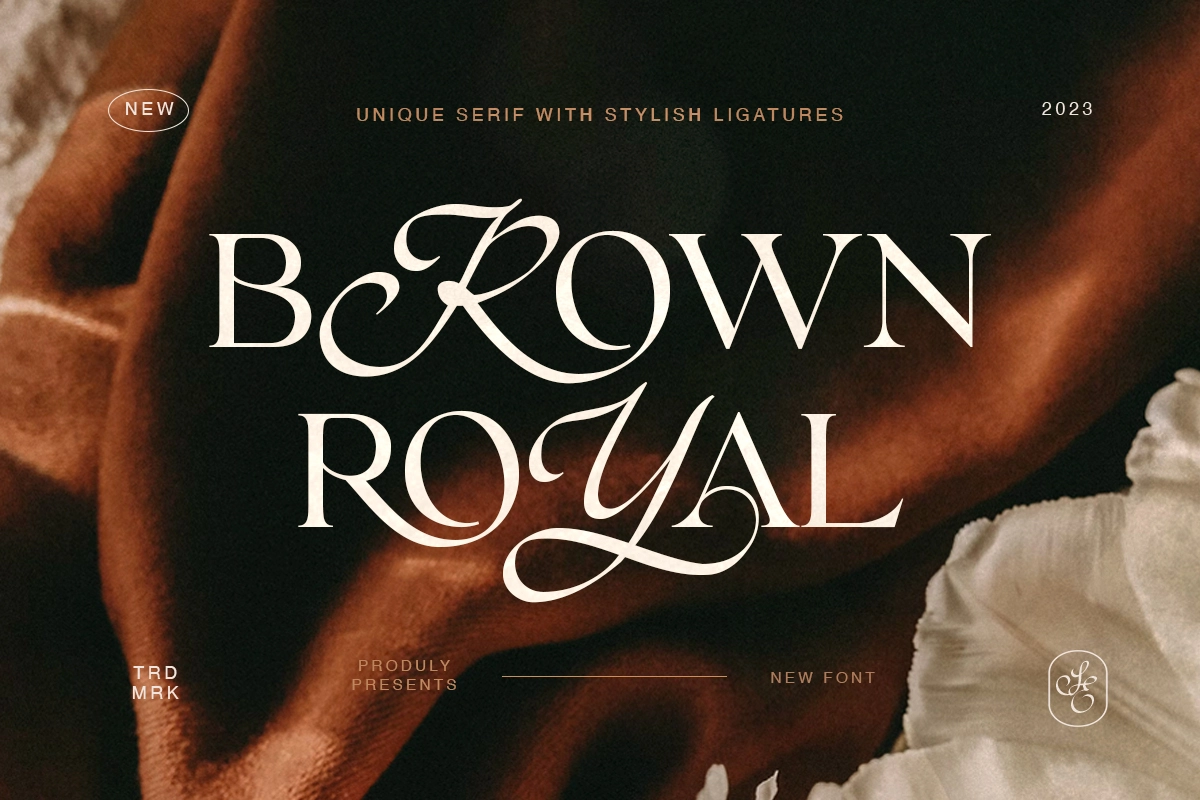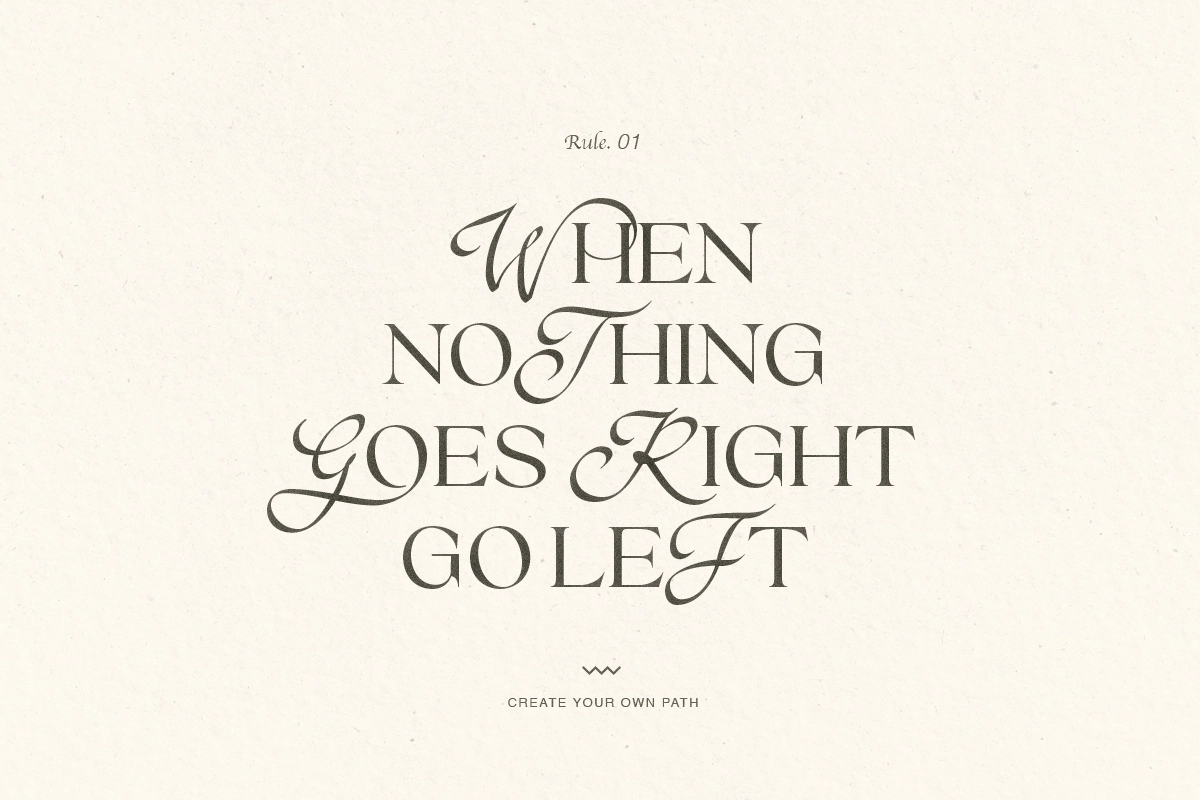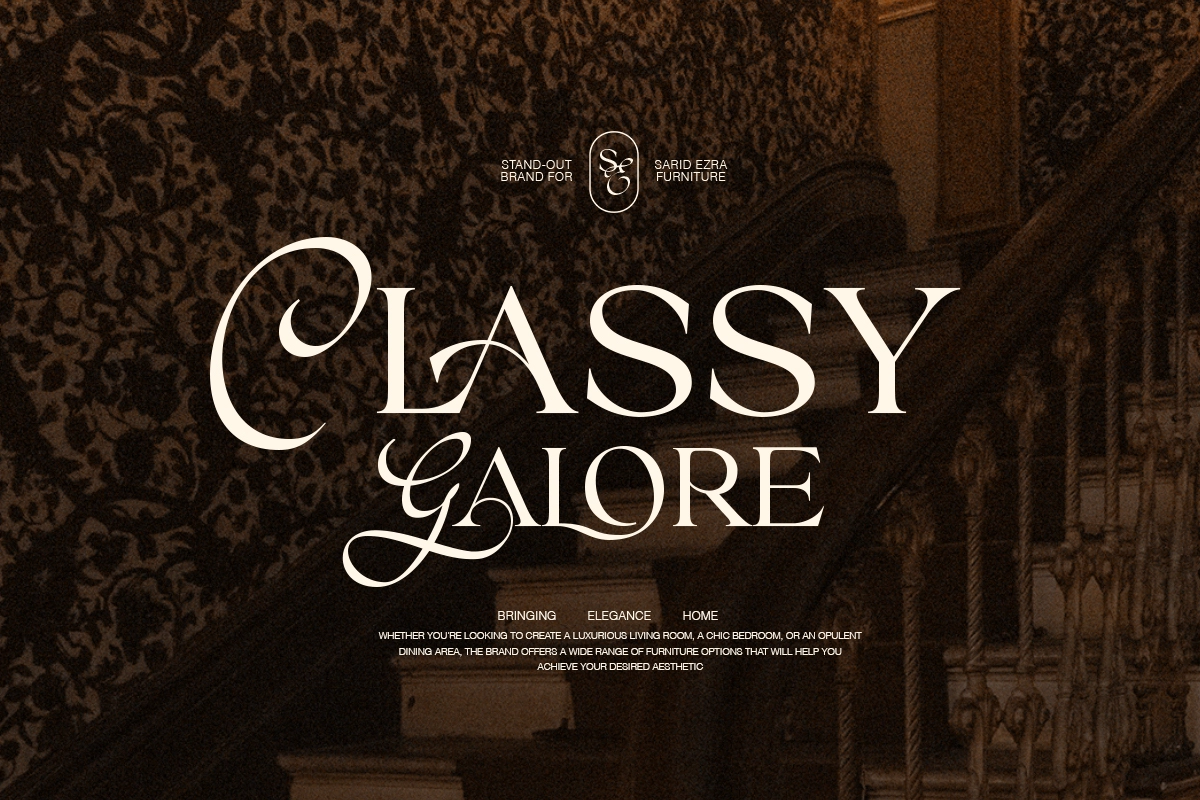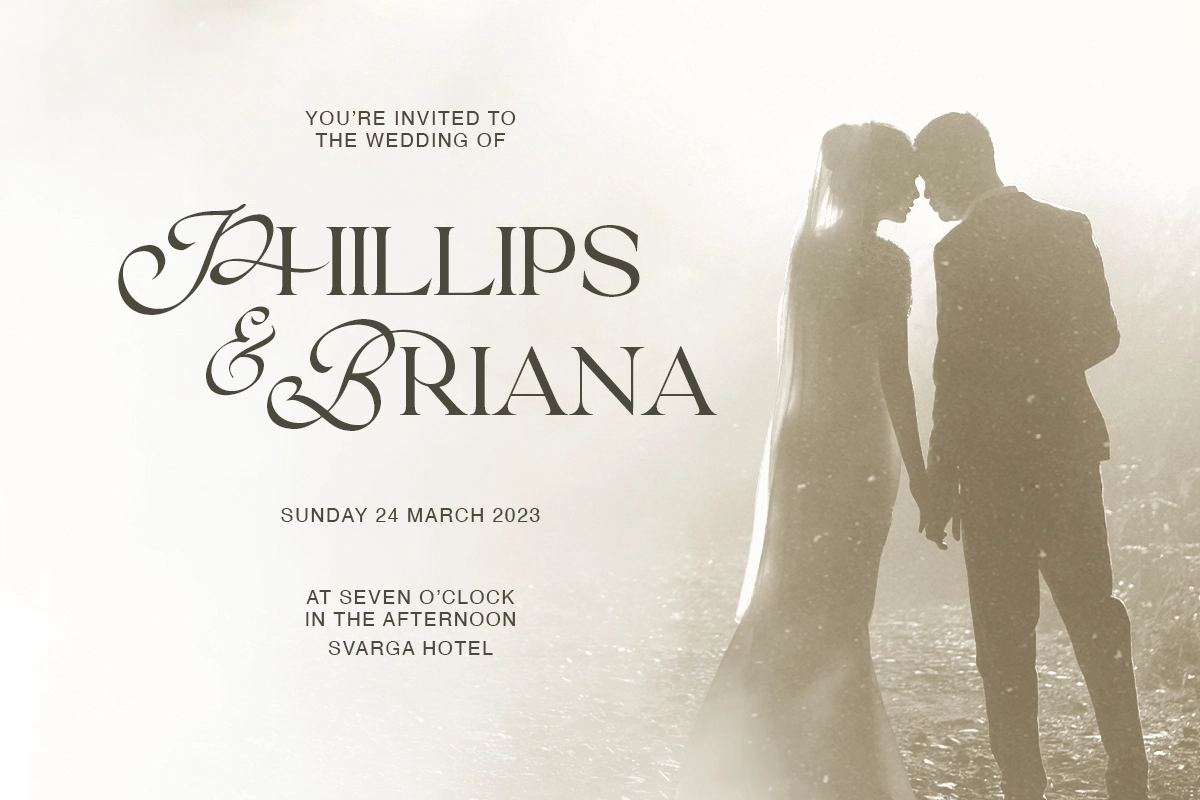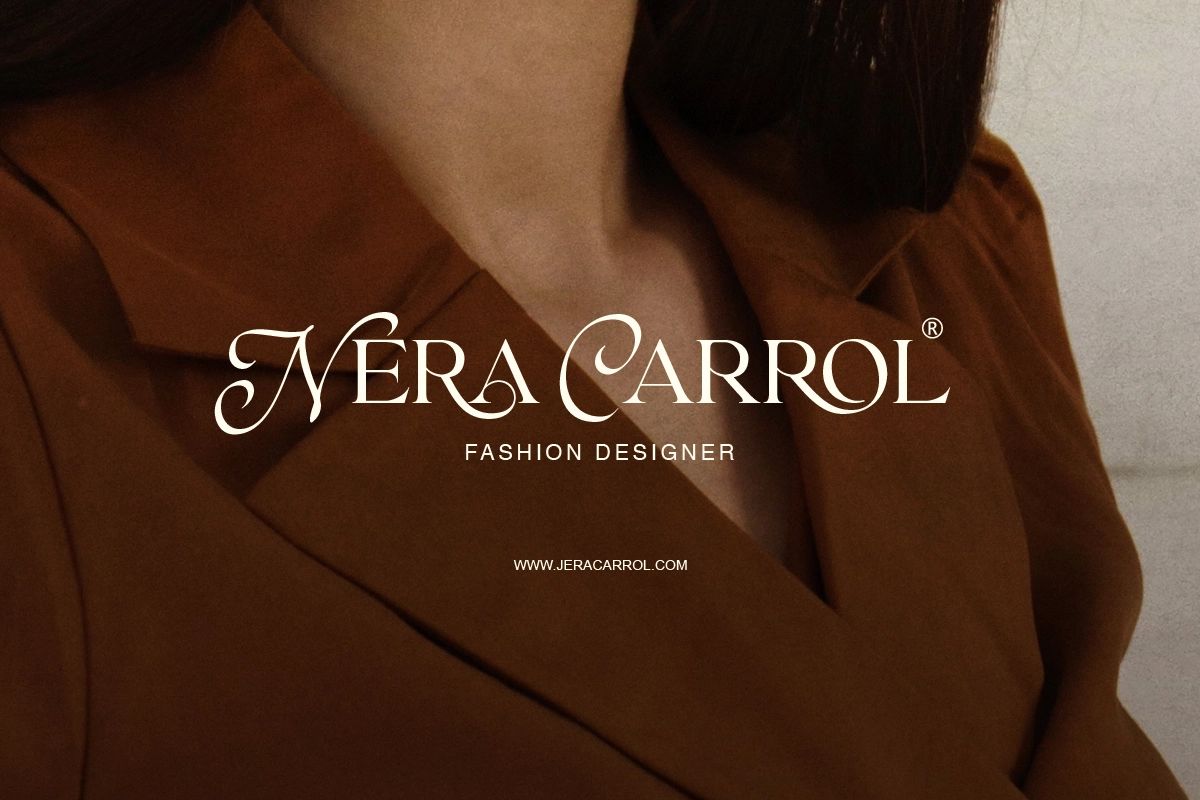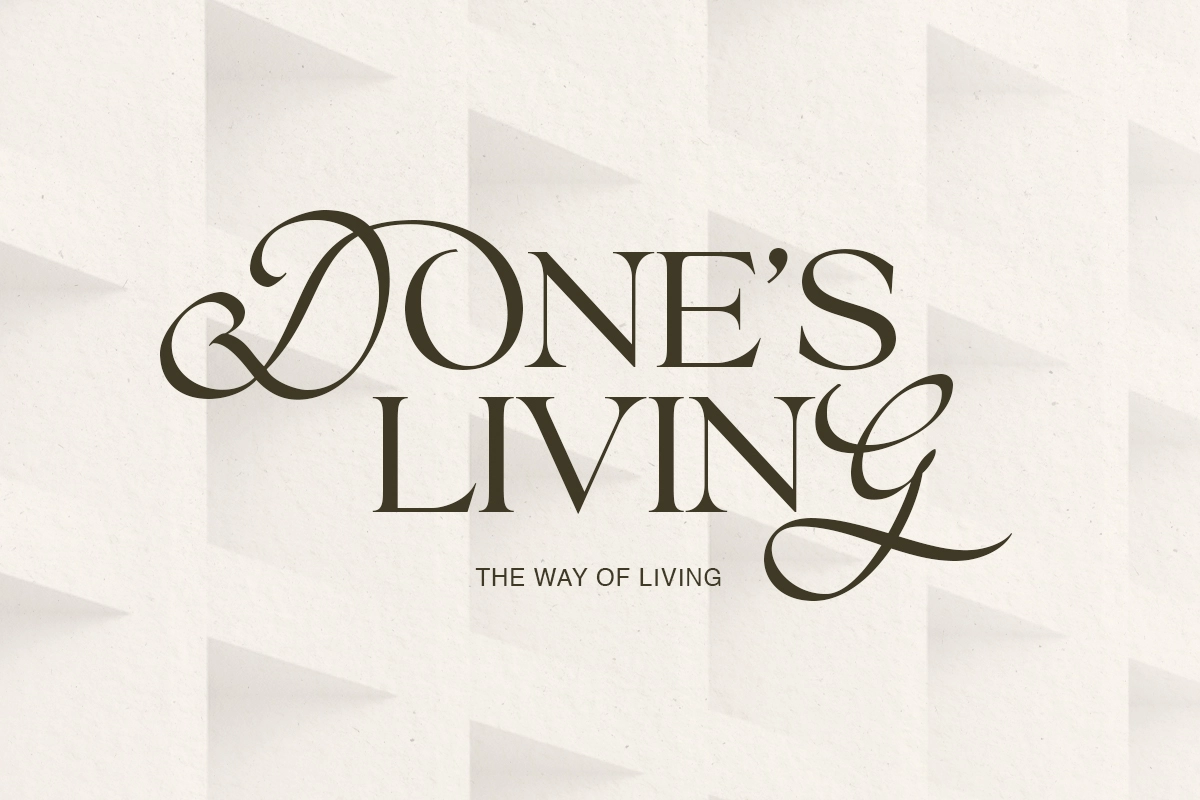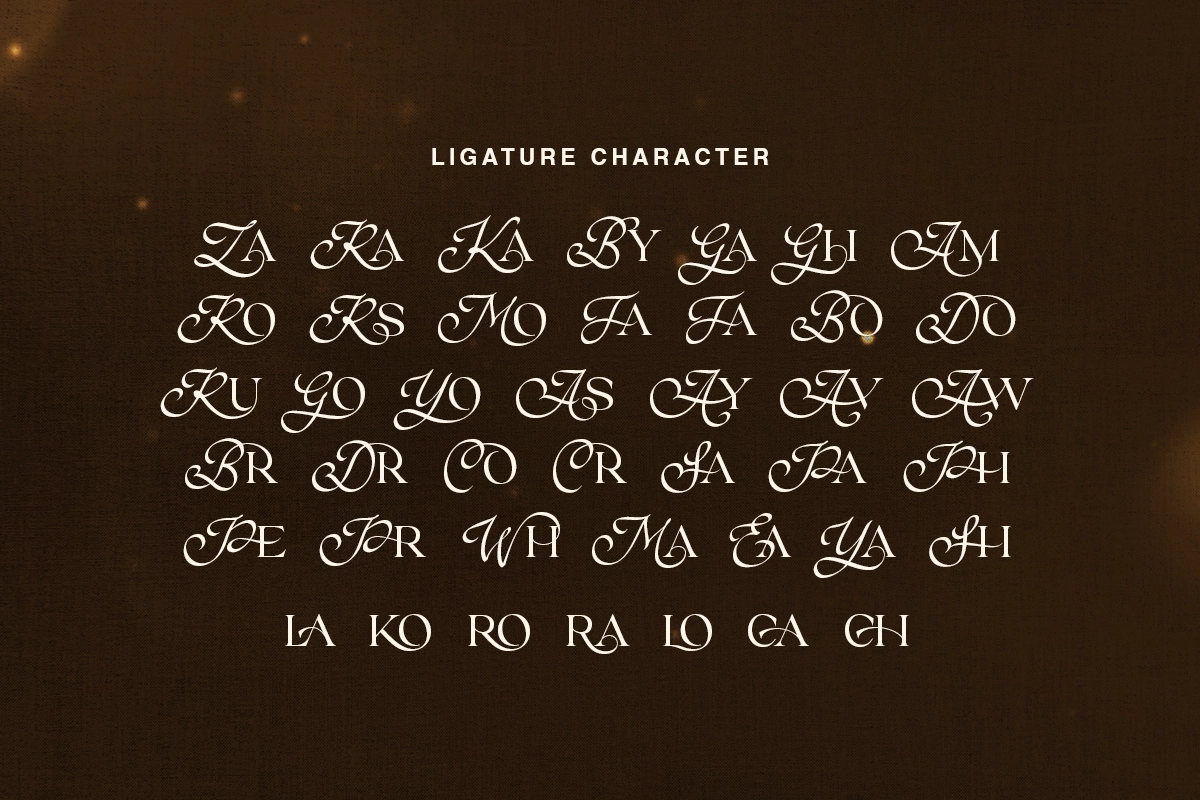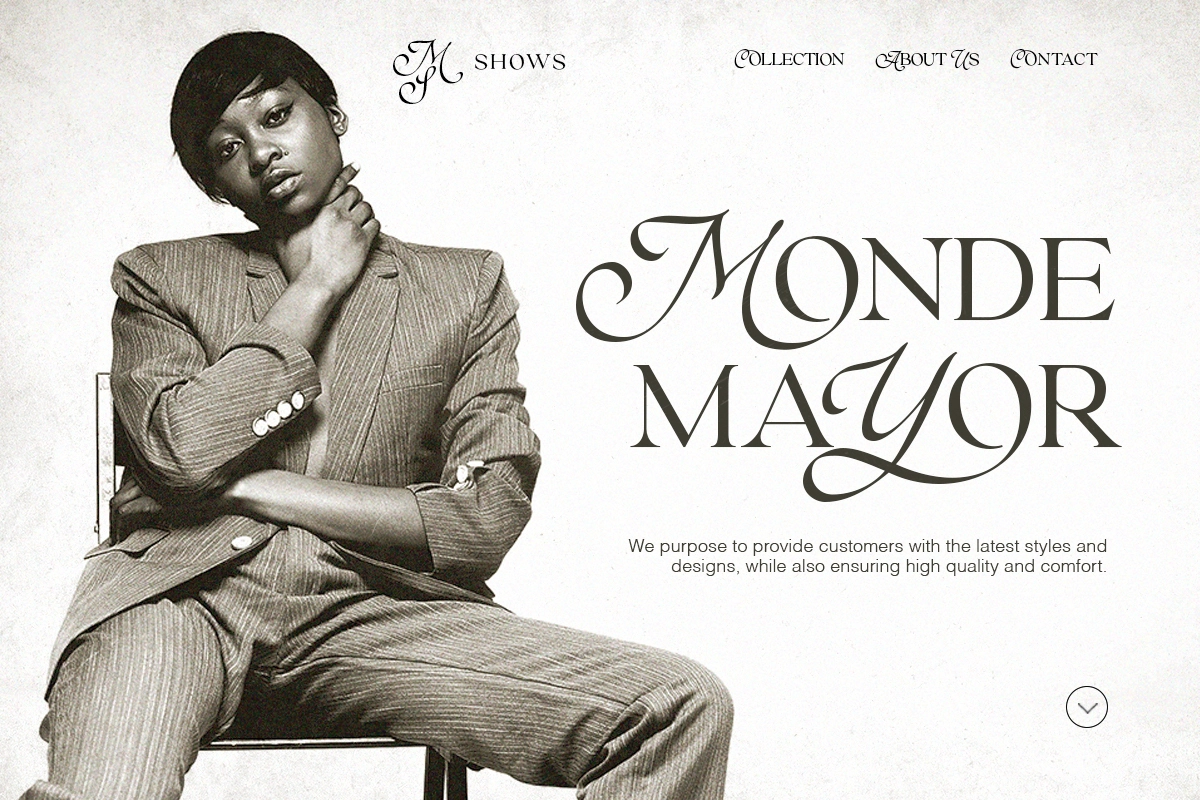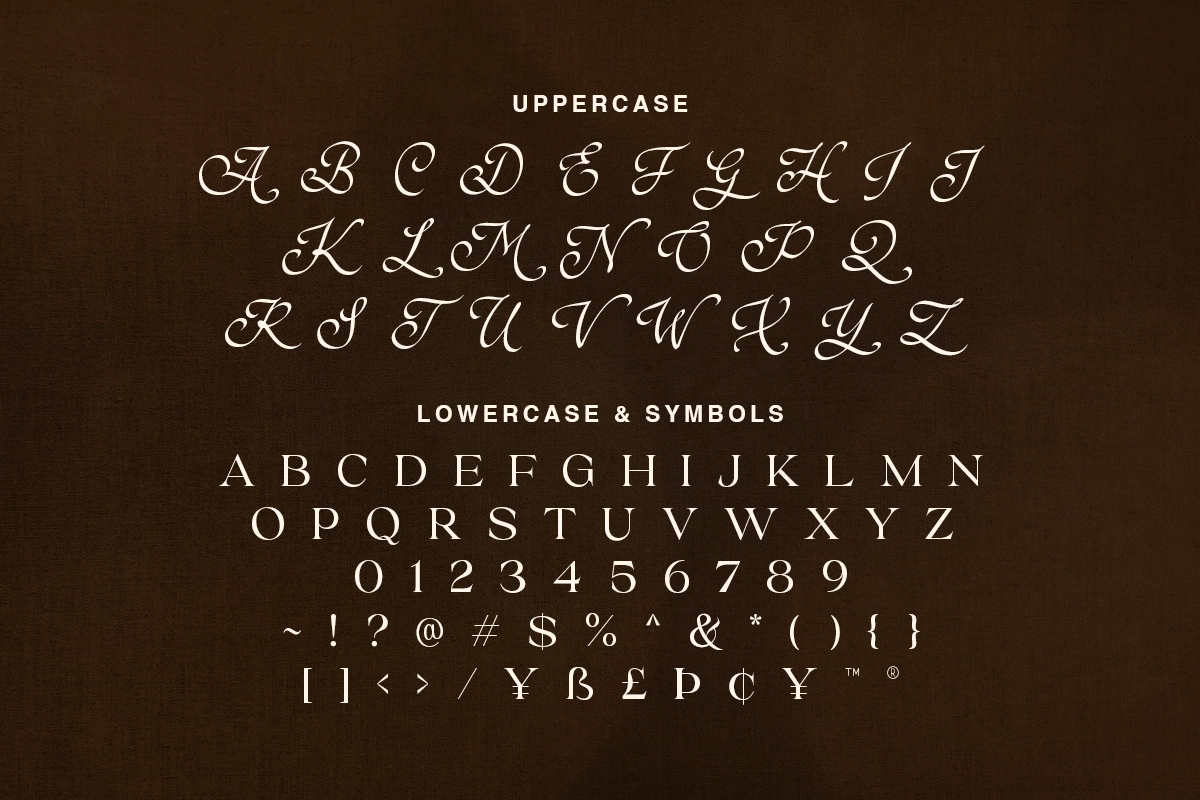
Brown Royal - Stylish Ligature Font
Brown Royal is a combination of stylish script as uppercase and classic all caps serif as lowercase. You can use the uppercase from the start of the word, or you can use it in the middle of word for stylish and modern looks. With beautiful ligature that unique combined between two characters that will make your project even more luxury and delicate. You can use this font for many purposes, such as a logo, branding, quotes, or even wedding invitations. This font also support multilingual!